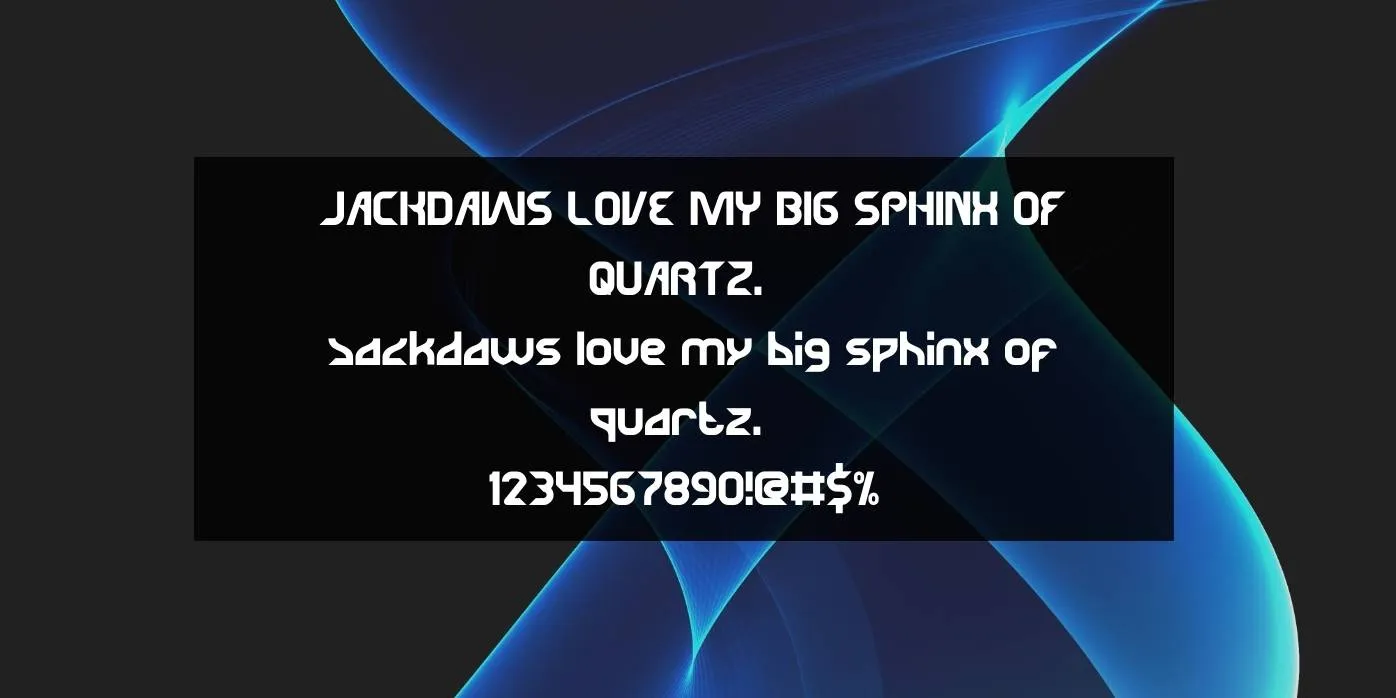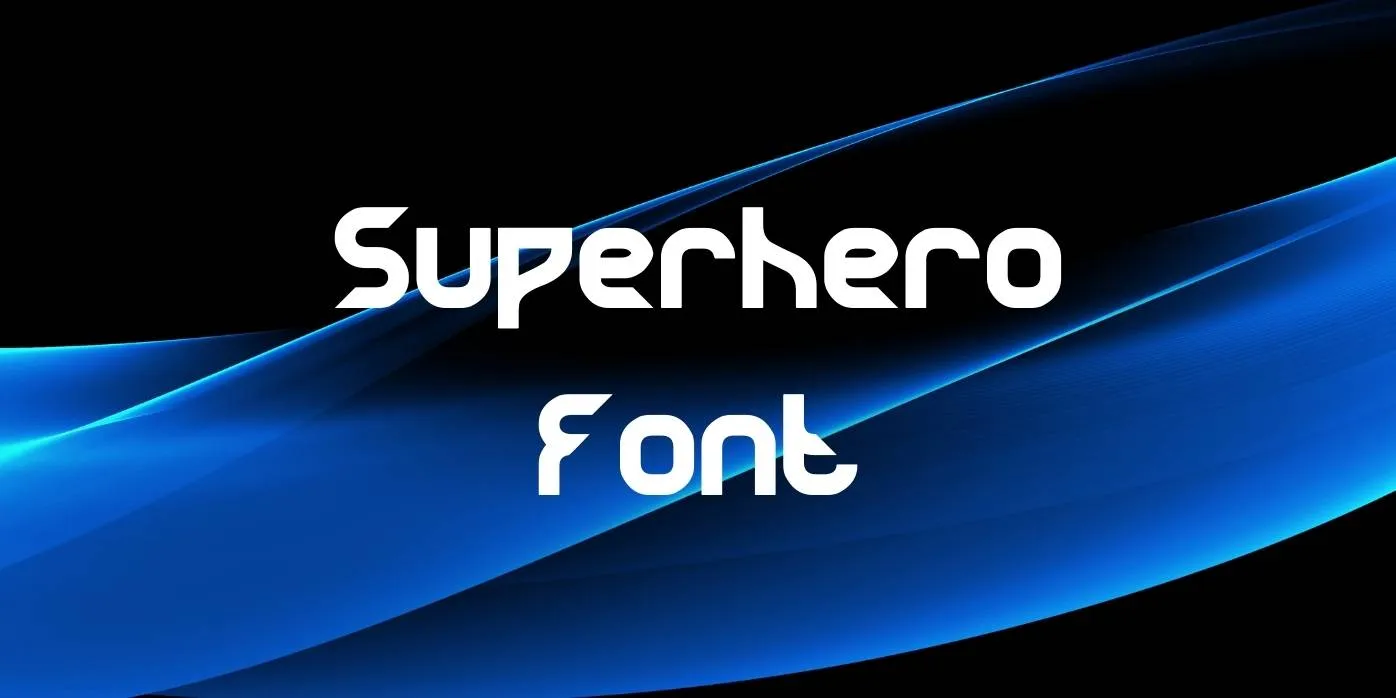
Superhero Font
Here, we are going to discuss a new typeface that is known by the name Superhero Font. It is developed by Fenotype Font Foundry. This typeface belongs to the fancy typeface. This typeface supports many languages.
You can use this typeface for various purposes like headlines, titles, logos, body text, etc. Superhero Font has a unique and attractive style. This typeface is available in two styles namely regular and italic. Both these styles have their own importance.
The regular style is best suited for headlines and titles. On the other hand, the italic style is best suited for body text and logos. This typeface is best for Canva and Word. This typeface has a very large x-height.
This makes it very legible even in small sizes. The superhero Typeface also comes with a few discretionary ligatures. Its text generator tool is very amazing for all colorful graphic designs.